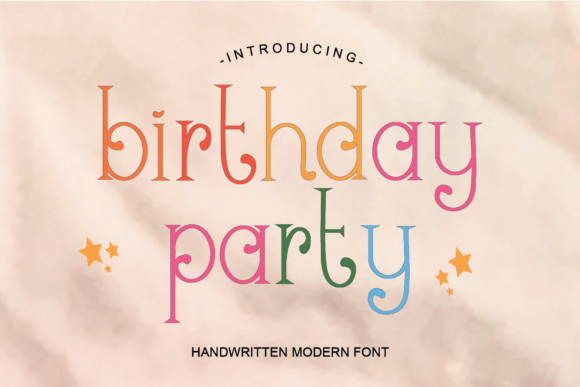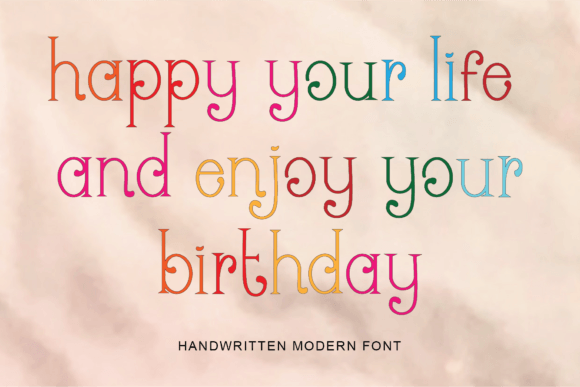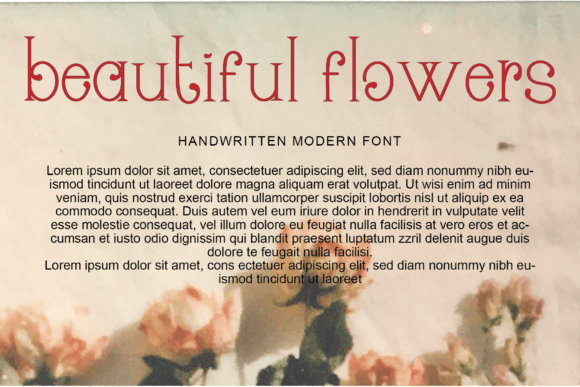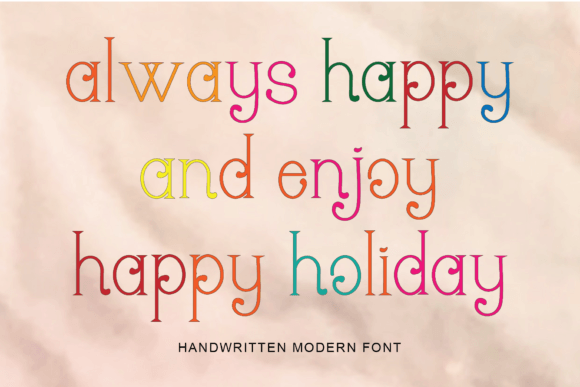
Birthday Party Font
Introducing the Birthday Party Font – a jubilant typeface encapsulating the precious innocence and animation of celebratory occasions. This delightful and whimsical design is your secret ingredient to infuse a splash of festival merriment into your Christmas-inspired creations. Brimming with lively charm, the Birthday Party font transforms every design into an expression of festive joy. Experience the mirth of celebrations right at the heart of your creations with this vibrant font. Believe in the magic of the holiday season, and let your designs shimmer with the Birthday Party font.